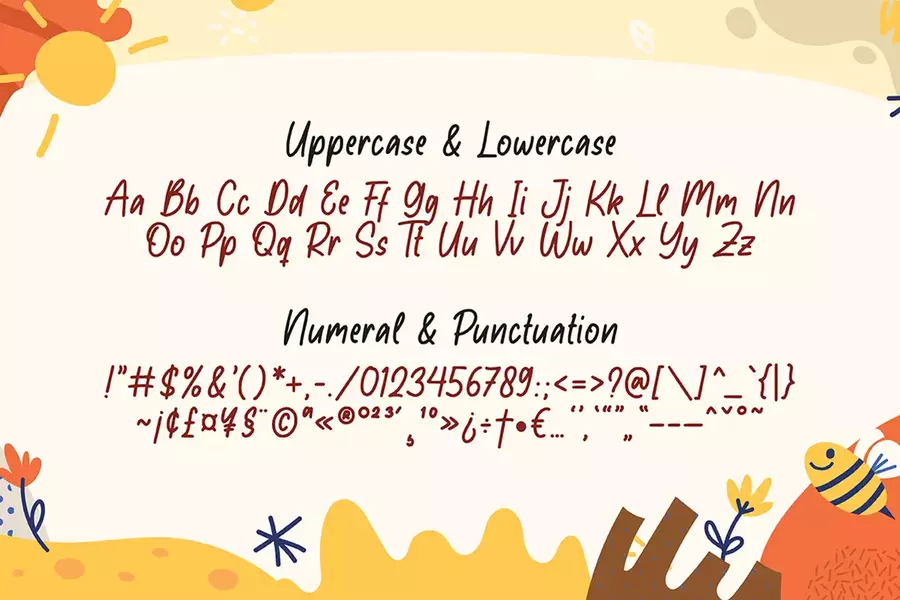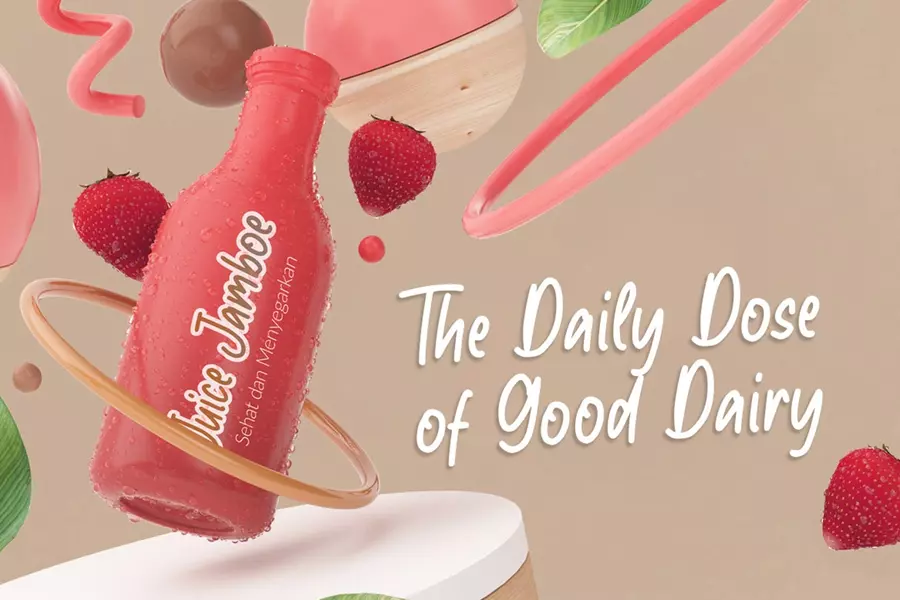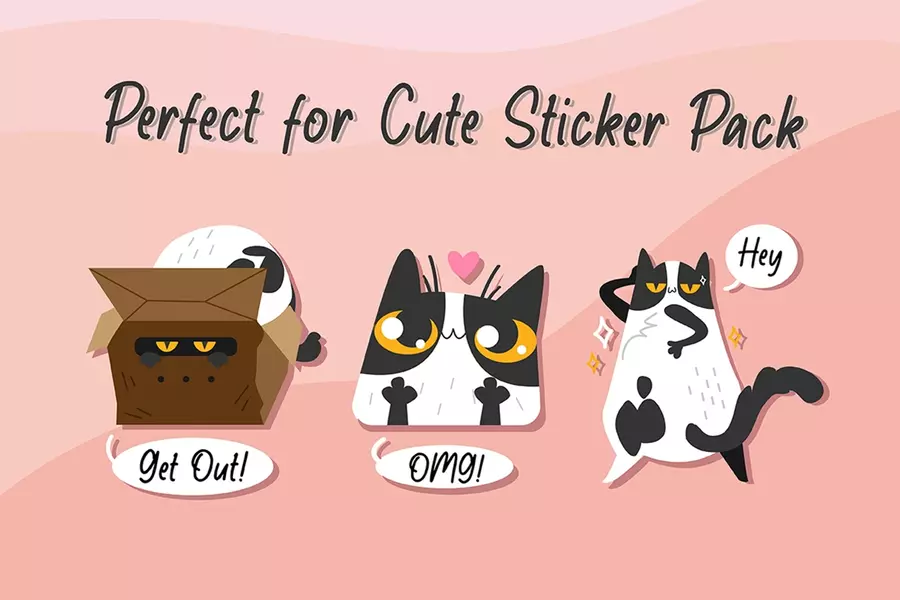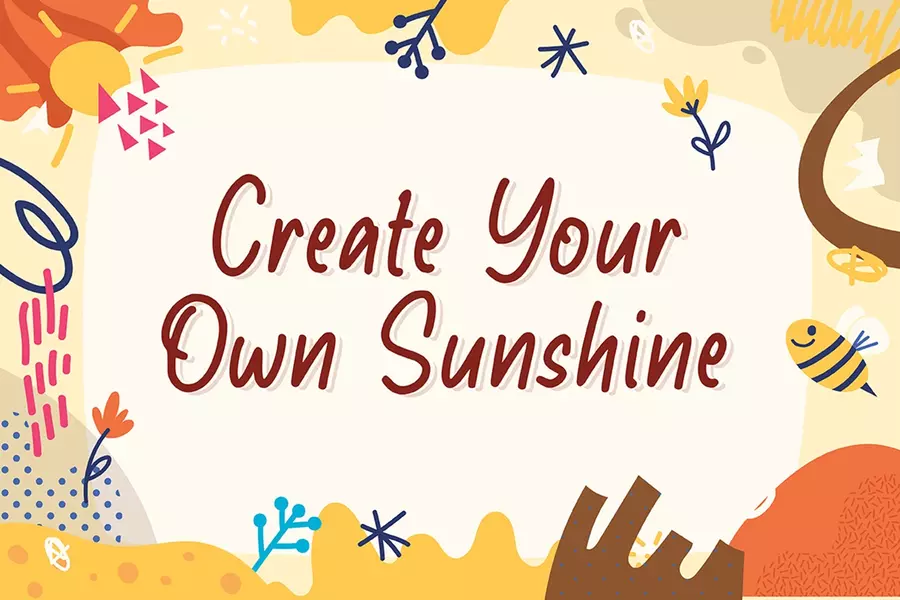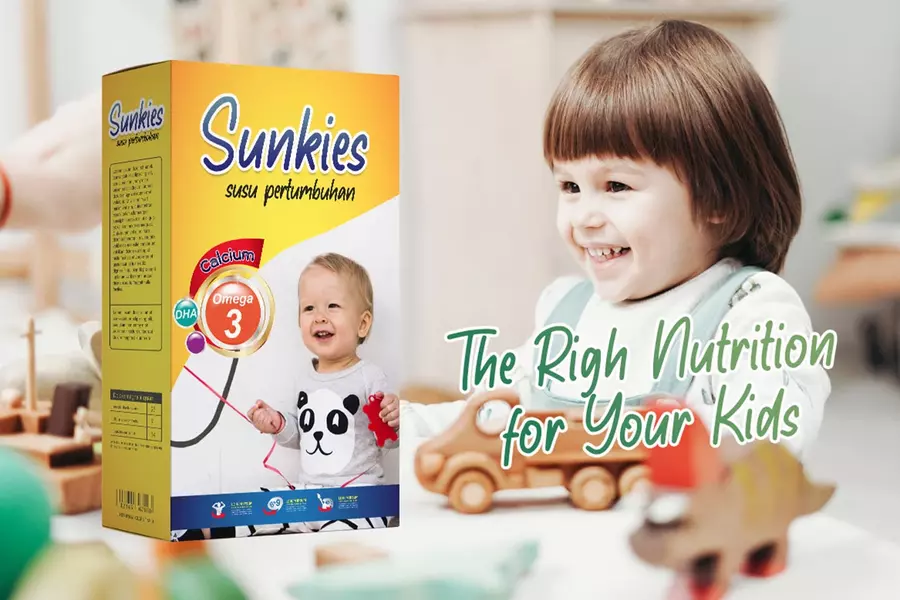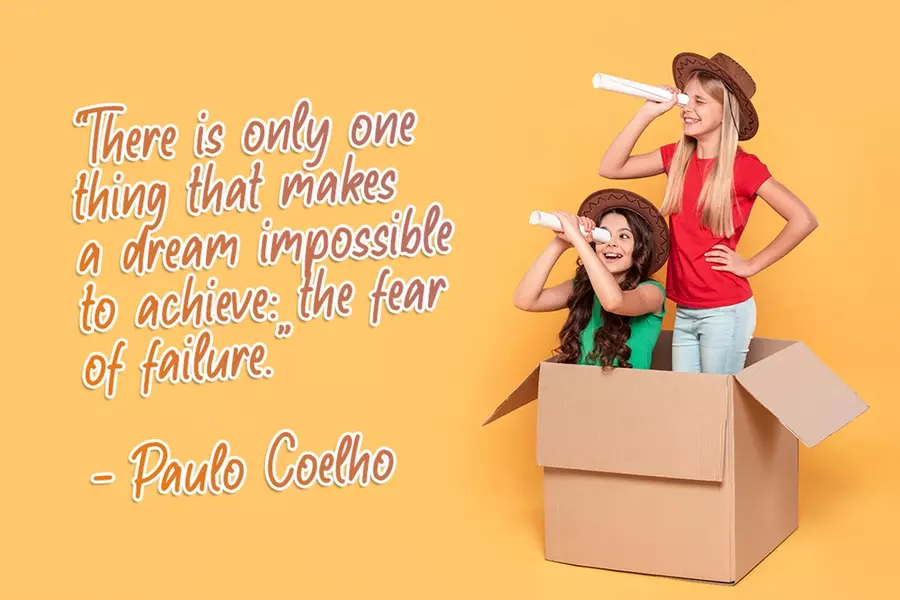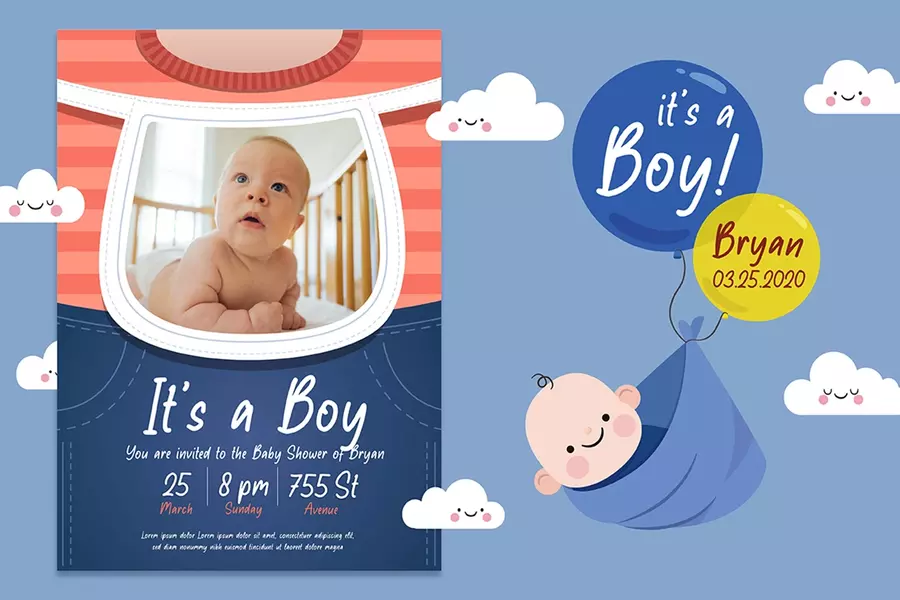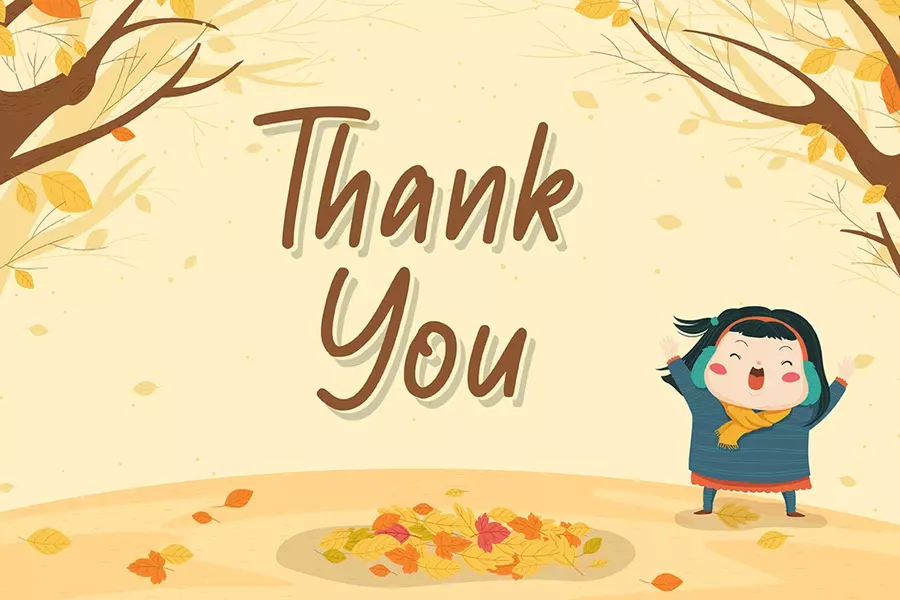
Raytone – Cute Handwritten Font
Raytone is a cute and fun display font. It has a cheerful style that will elevate your projects to the highest level. Get creative with its childlike playfulness, and use it to brighten up any kids and school project!